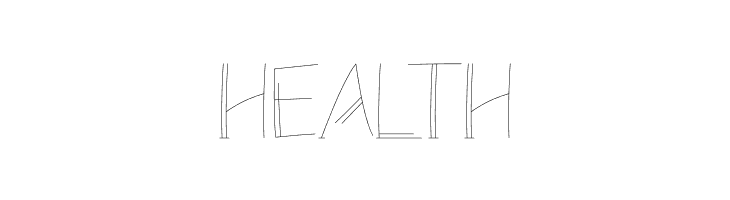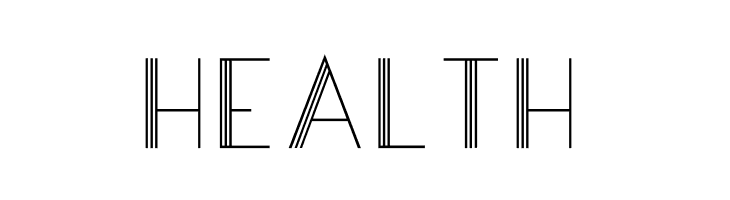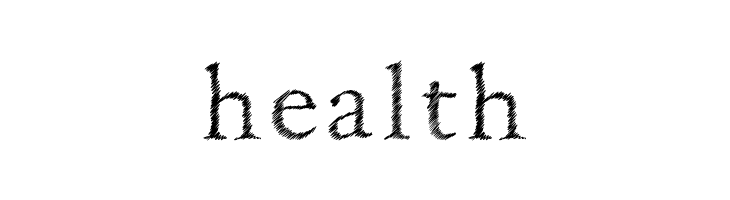
A modern, monolinear font with geometric shapes and consistent stroke widths.
A bold, geometric font with a playful and eye-catching design.
A geometric Art Deco font with elegant, linear elements.
A modern, curvilinear font with smooth, flowing lines and elegant style.
A sketch-style serif font with textured, hand-drawn strokes.
A flowing, artistic font with curvilinear, hand-drawn style.
A clean, monolinear sans-serif font with a modern, geometric style.
A geometric, futuristic font with angular, linear design and uniform stroke width.
A bold, playful handwritten font with a casual and energetic style.